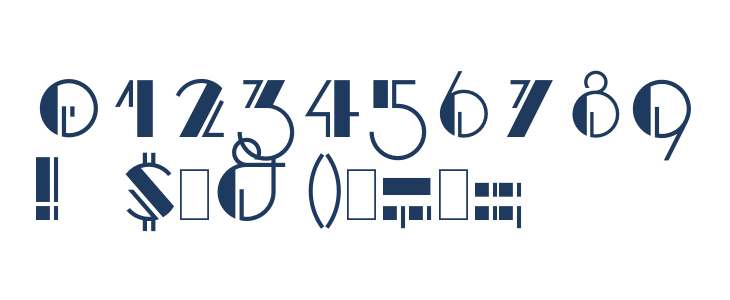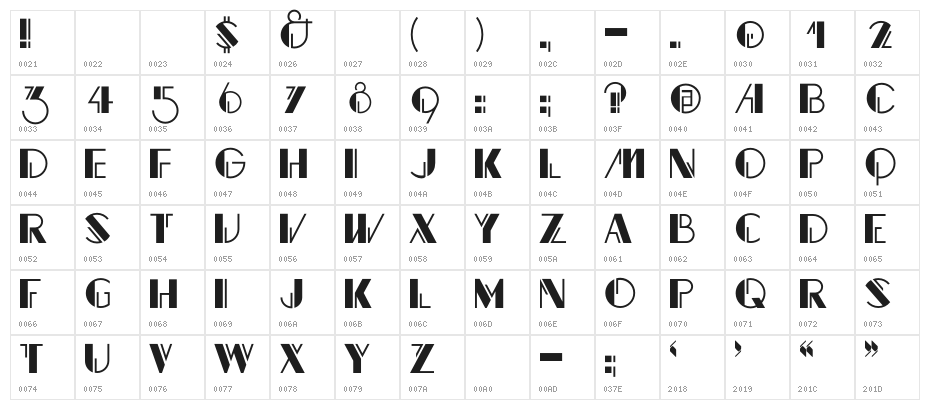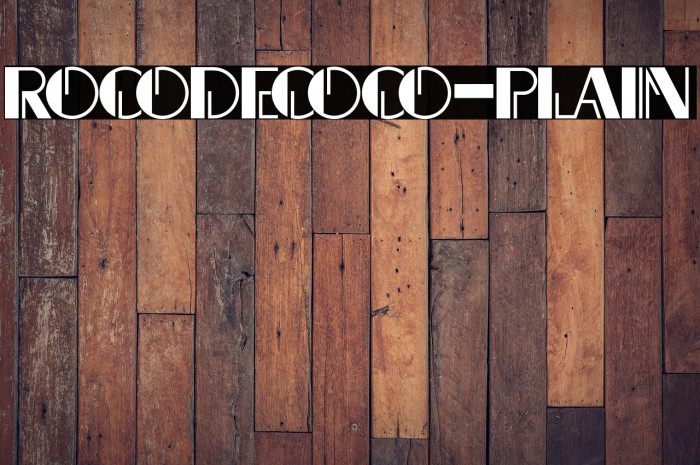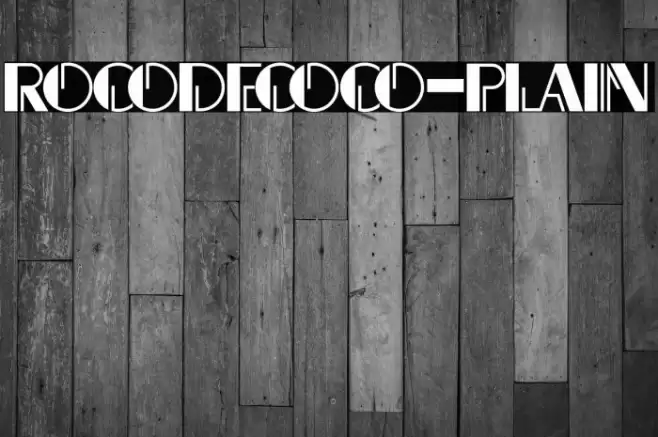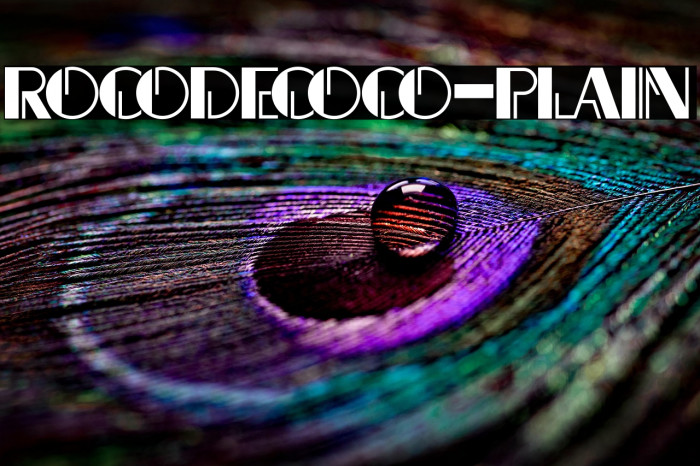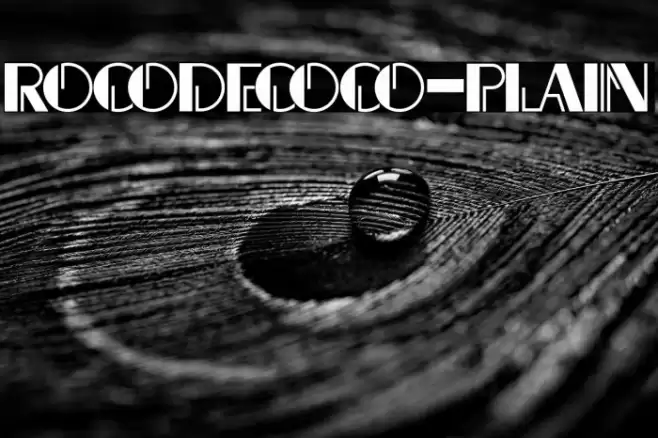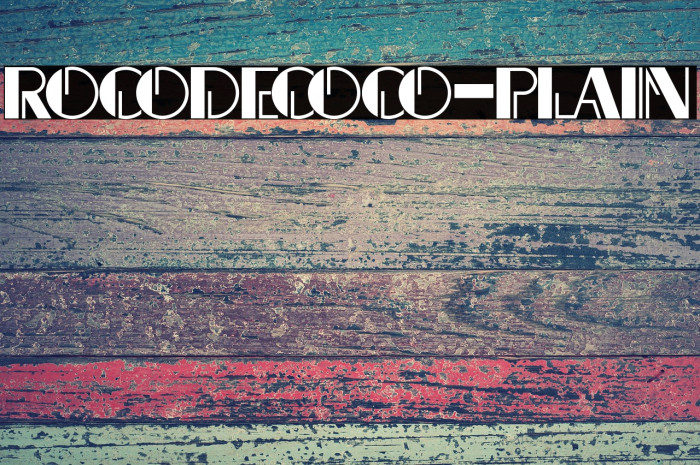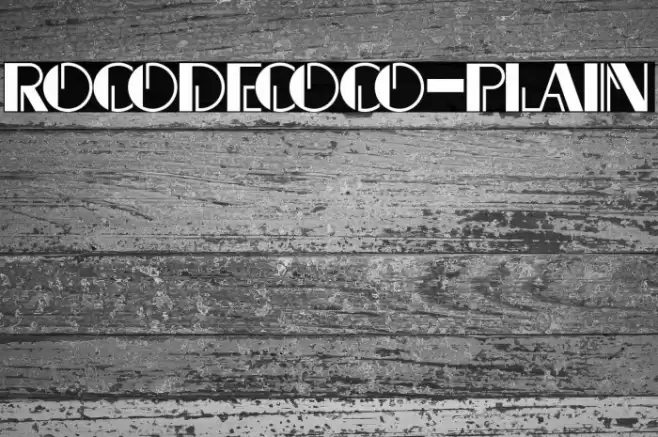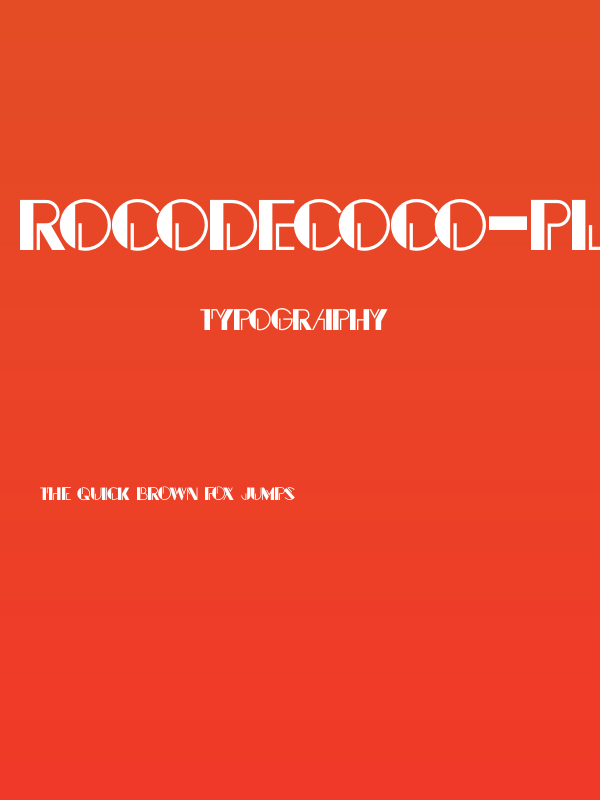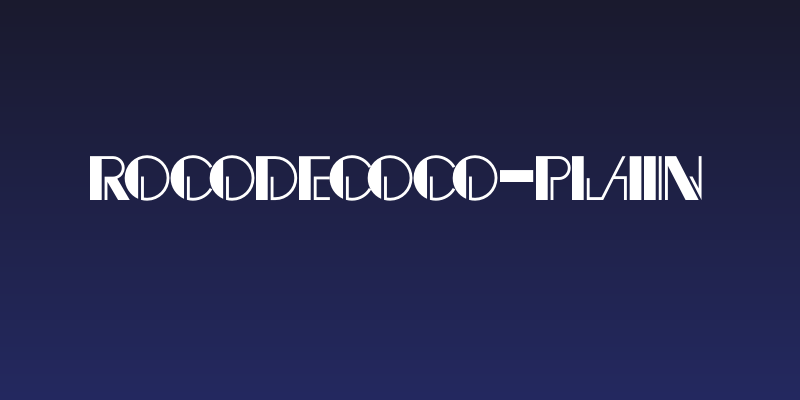
Rocodecoco-Plain Font
Rocodecoco-Plain Description
This font features a bold and geometric design, characterized by its strong, angular shapes and high contrast between thick and thin strokes. The letters are constructed with a modern and futuristic aesthetic, incorporating sharp edges and unique cutouts that create a dynamic visual impact. The uppercase letters exhibit a consistent height and width, while the lowercase letters maintain a similar style, ensuring uniformity across the typeface. The numerals and special characters follow the same design principles, offering a cohesive look throughout. This font's distinct style makes it suitable for attention-grabbing headlines and creative projects.
| Proposed Projects | Ideal for branding, posters, logos, and editorial design where a modern and striking appearance is desired. |